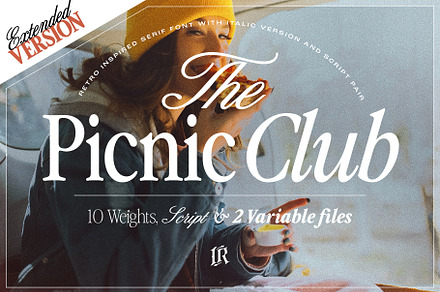
The Picnic Club 11 Fonts
An eleven-font collection with a warm outdoor character, covering scripts, sans and display faces designed to work together.
Mixed-style collections solve the pairing problem at the point of purchase, since every combination has already been tested by the designer.
• Scripts, sans and display faces
• Pre-tested combinations
Where it works
• Brand identity systems
• Packaging and label design
• Event and hospitality branding
• Social and print work